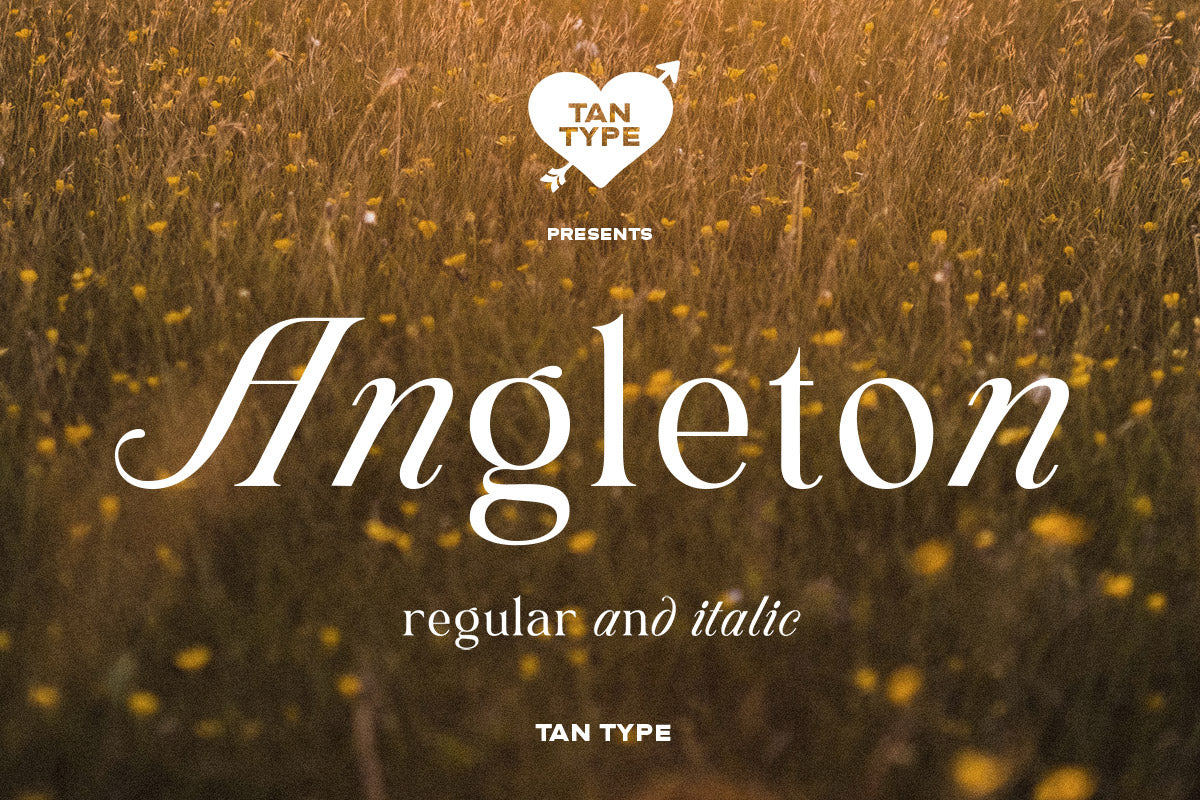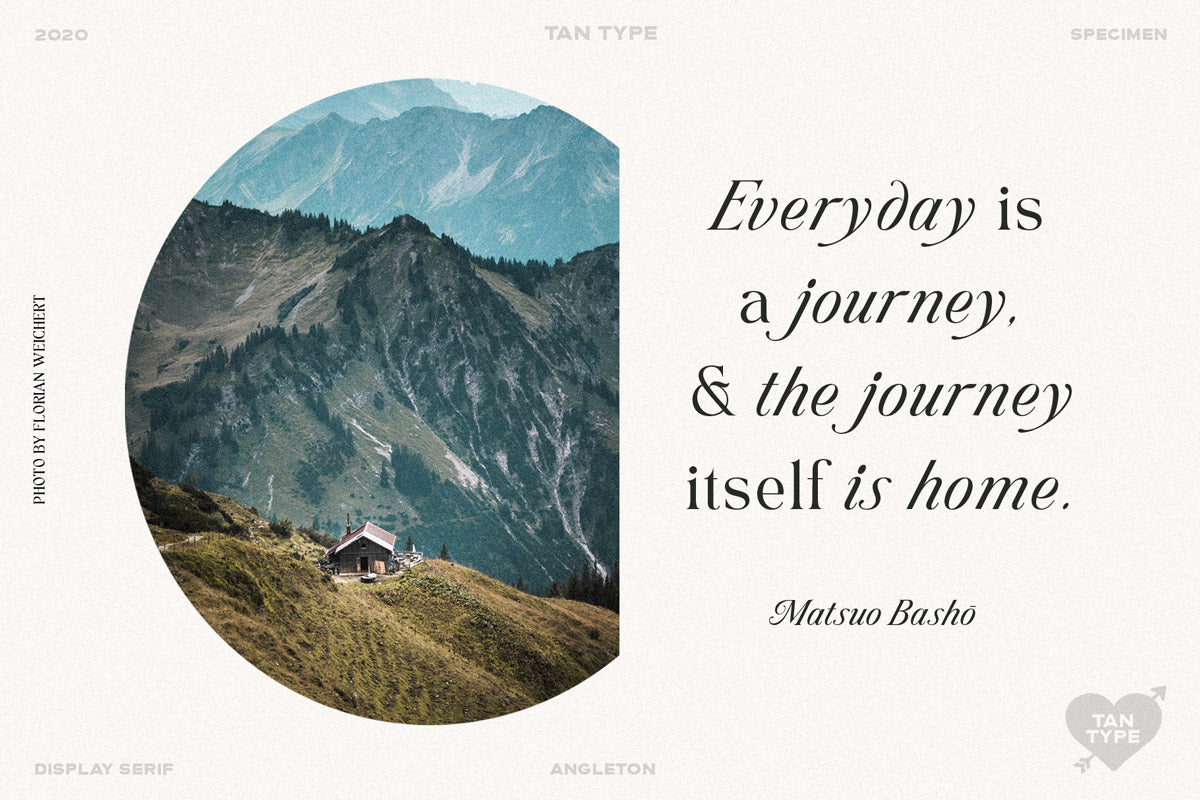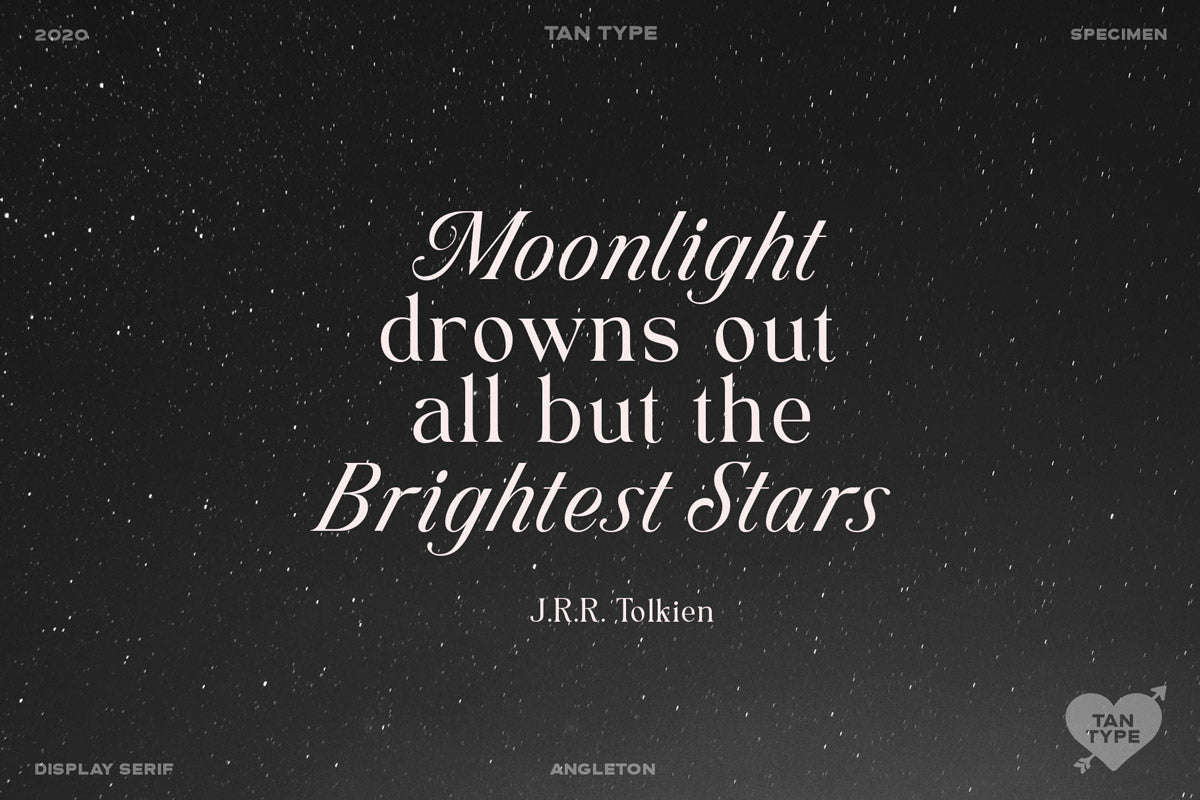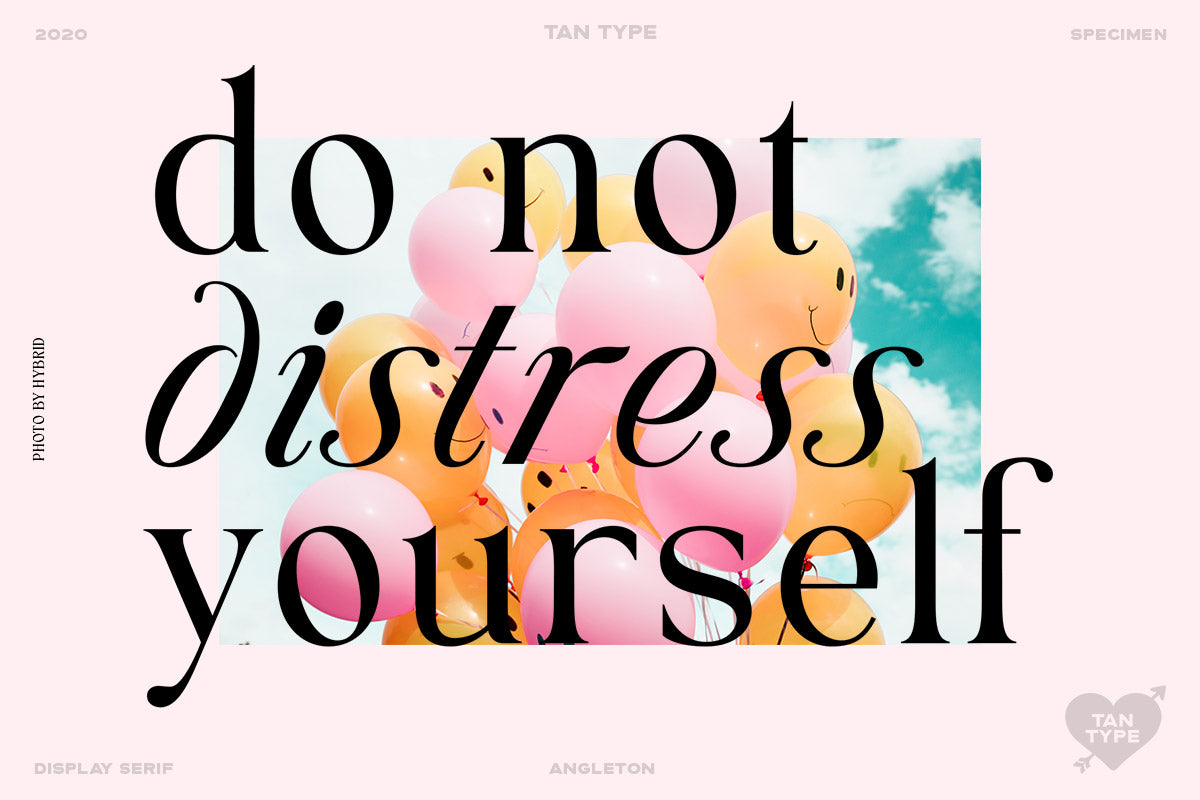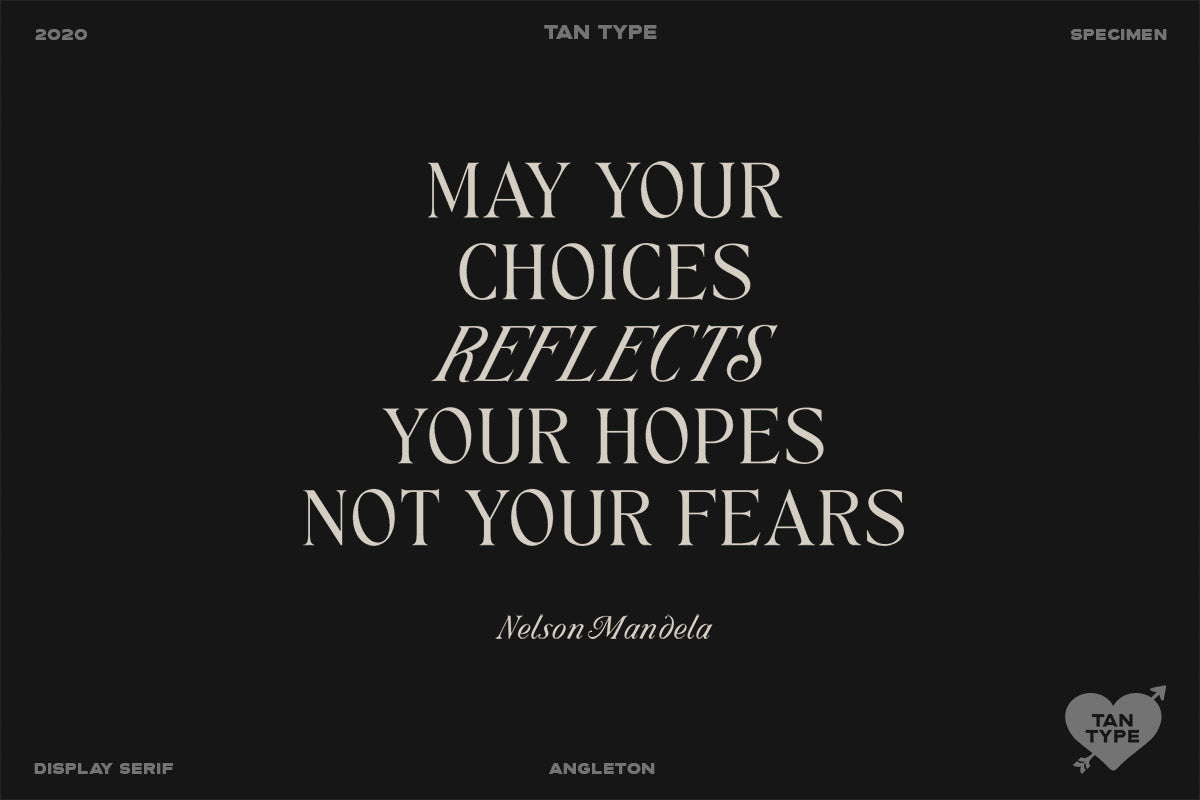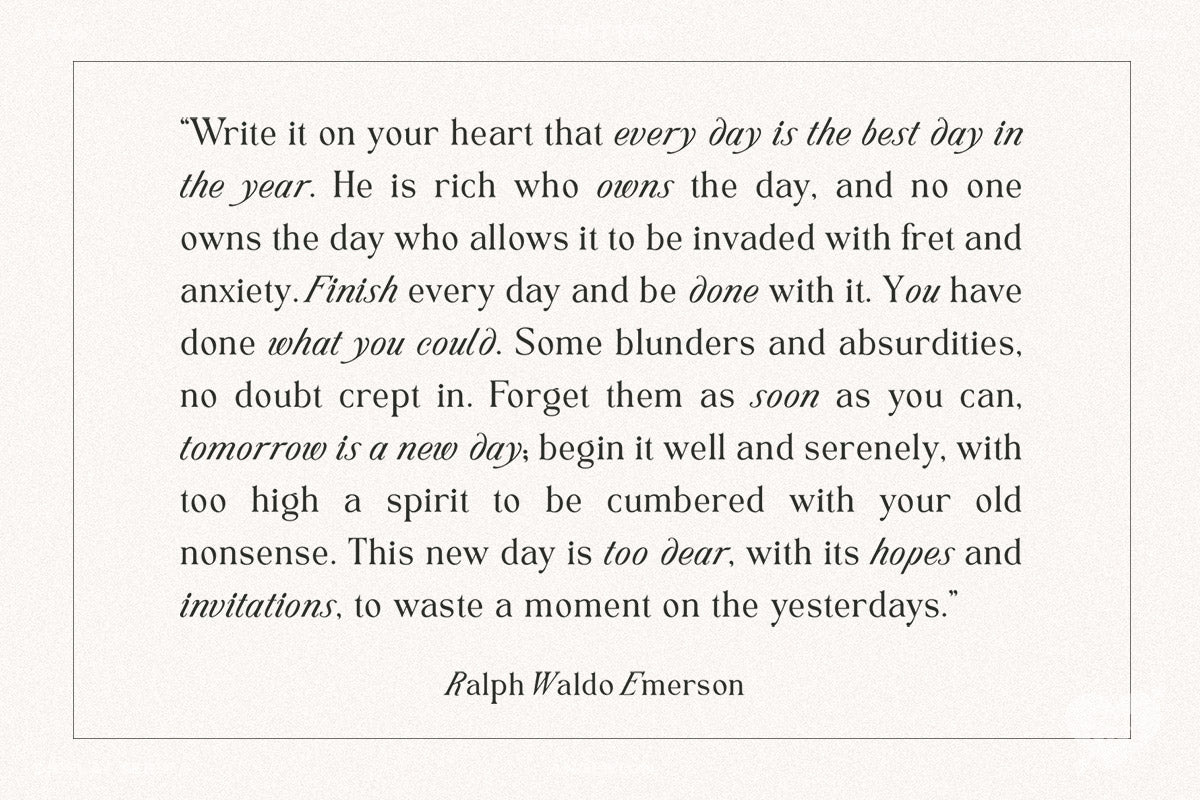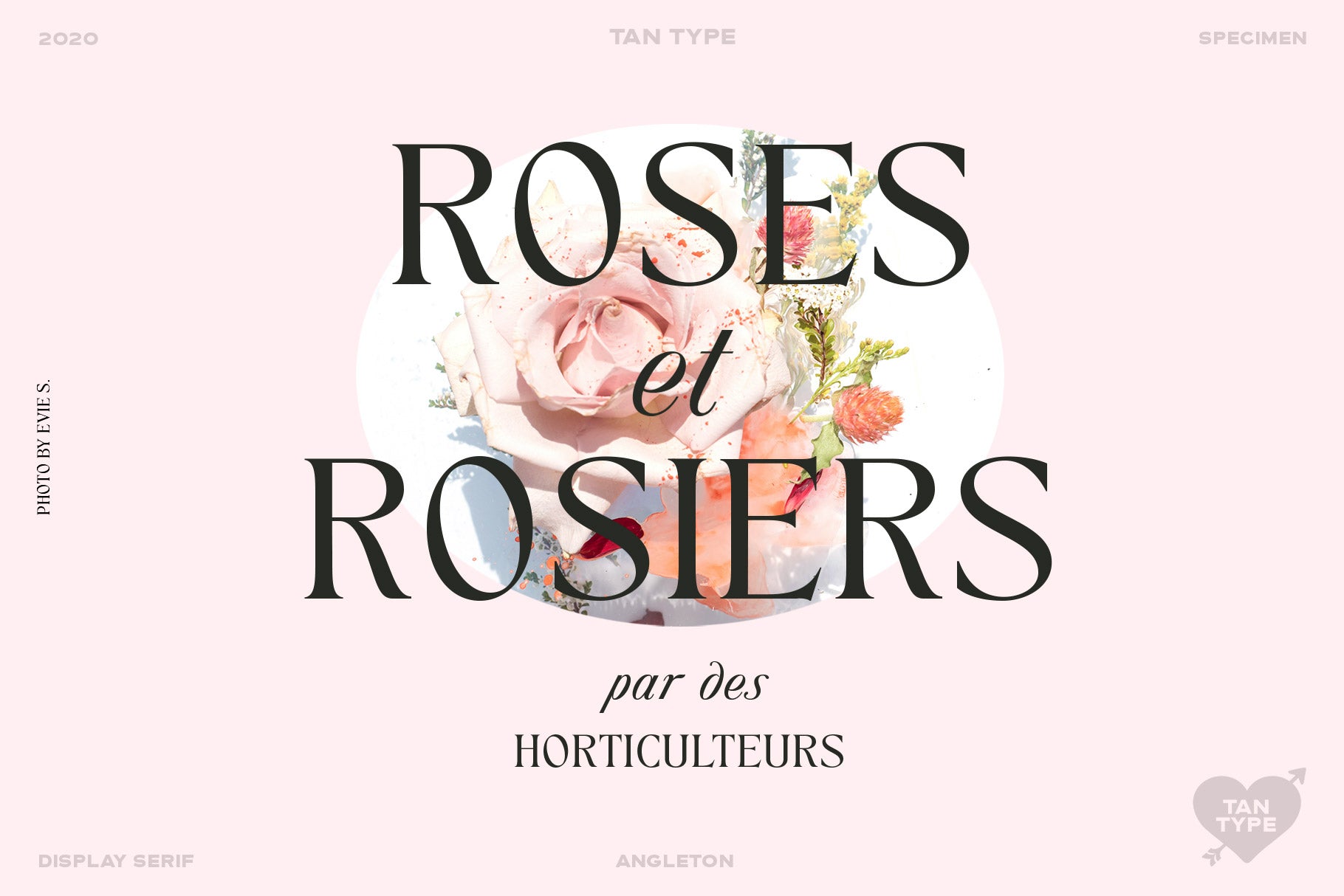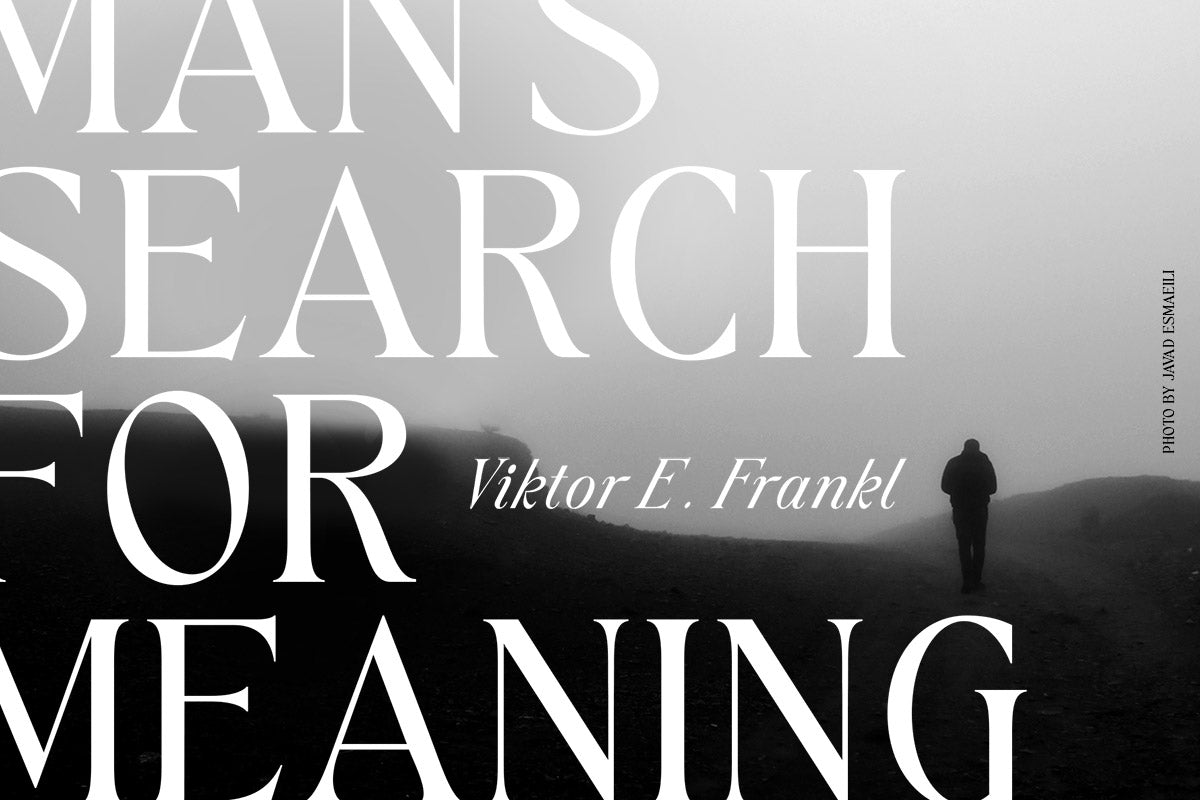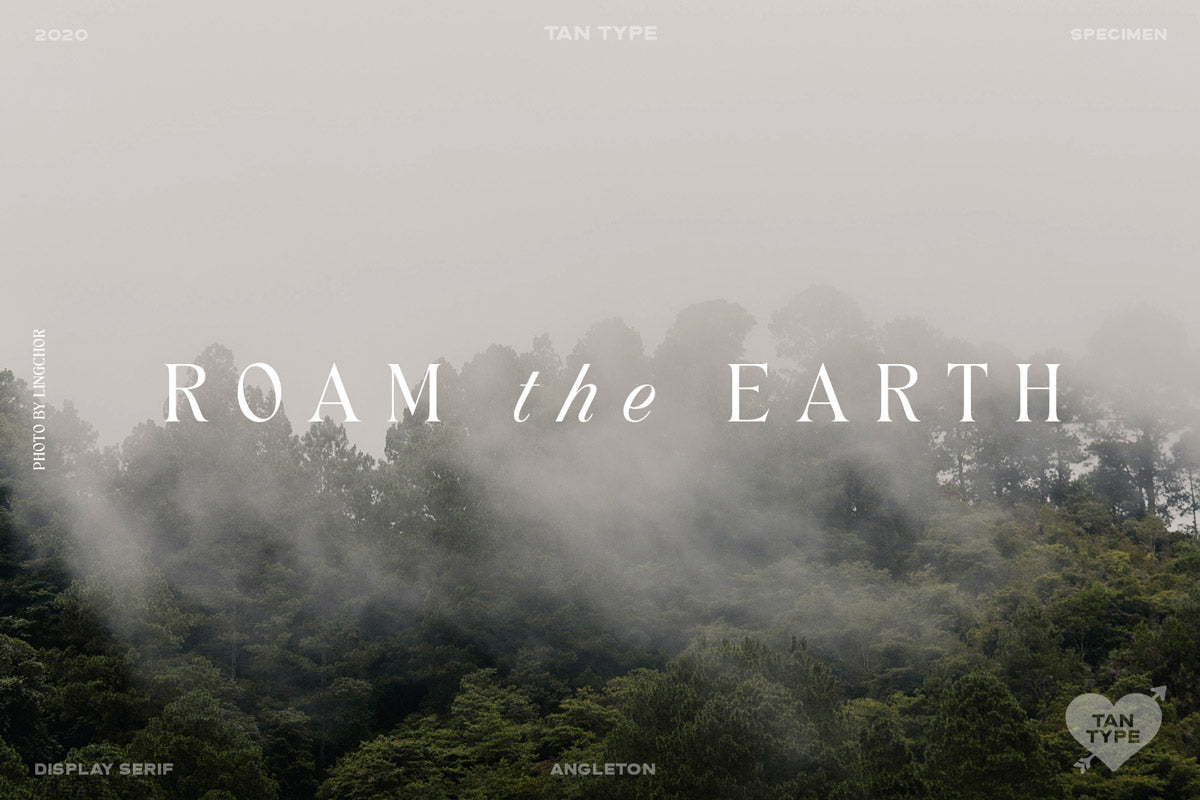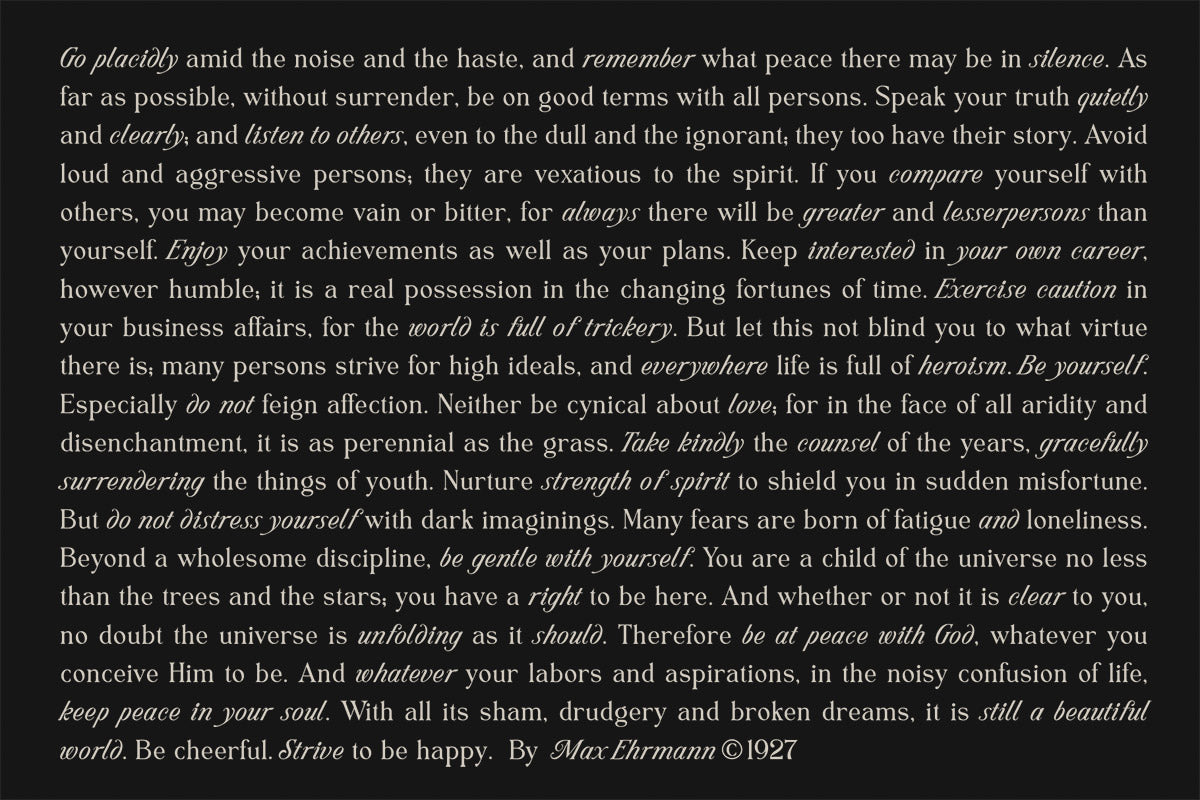
ANGLETON is a graceful and timeless serif typeface with classic proportions and delicate contrast. Its refined curves and elegant italics lend a sophisticated voice, combining traditional charm with a fresh, contemporary touch that feels both literary and stylish.